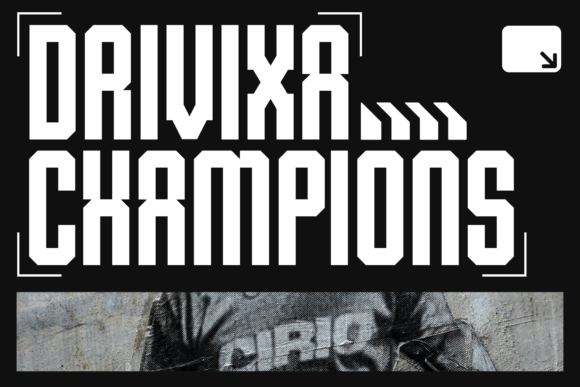
Unleash Your Competitive Edge with Drivixa Champions Font
Are you looking for a typeface that embodies the spirit of competition, speed, and victory? Look no further than Drivixa Champions, a high-performance athletic font designed to dominate the track and the screen. This bold, geometric display font is built with powerful angles and athletic energy, making it perfect for sports-related graphics, logos, and designs that demand strength and impact.
Inspired by the Competitive Spirit of Sports
Drivixa Champions is inspired by the competitive spirit of sports, from the electric atmosphere of football stadiums to the high-stakes world of esports arenas. This typeface brings confidence and motion into every letterform, making it ideal for headlines, team branding, event posters, and gaming visuals. The squared structure and compact spacing give it a strong presence, making it perfect for designers and crafters who want to create dynamic and impactful designs.
Key Features of Drivixa Champions Font
• Bold and Geometric Design: Drivixa Champions is a bold, geometric display font built with powerful angles and athletic energy.
• Squared Structure: The squared structure and compact spacing give it a strong presence, making it ideal for headlines, team branding, and event posters.
• Sharp Corners and Tight Grid Alignment: Each character is designed with purpose — sharp corners, tight grid alignment, and striking rhythm — making it perfect for sports-related graphics, logos, or any design that demands strength and impact.
Perfect for Sports Branding and Event Posters
Drivixa Champions is perfect for sports branding and event posters, including:
• Football: Create dynamic and impactful designs for football teams, leagues, and events.
• Basketball: Bring the energy and excitement of basketball to your designs with Drivixa Champions.
• Racing: Speed and performance are at the heart of racing — Drivixa Champions is the perfect typeface to capture this spirit.
• Esports: Take your esports designs to the next level with Drivixa Champions, the perfect typeface for competitive gaming.
Use Drivixa Champions for Team Identities and Strong Headlines
Drivixa Champions is not just limited to sports branding and event posters — it’s also perfect for team identities and strong headlines. Use it to:
• Create Dynamic Team Logos: Drivixa Champions is perfect for creating dynamic and impactful team logos that demand attention.
• Design Strong Headlines: Use Drivixa Champions to create strong headlines that capture the attention of your audience.
• Develop a Consistent Brand Identity: Drivixa Champions is the perfect typeface to develop a consistent brand identity that embodies the spirit of competition and victory.
Drivixa Champions is a high-performance athletic font designed to dominate the track and the screen. With its bold, geometric design, squared structure, and compact spacing, it’s perfect for sports-related graphics, logos, and designs that demand strength and impact. Whether you’re a designer, crafter, or simply someone who loves sports, Drivixa Champions is the perfect typeface to unleash your competitive edge and bring your designs to life.
Get Ready to Lead the Game